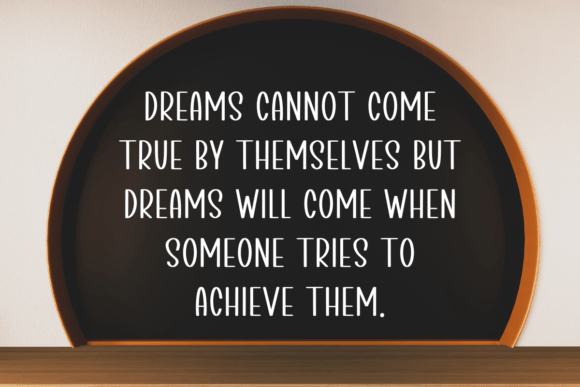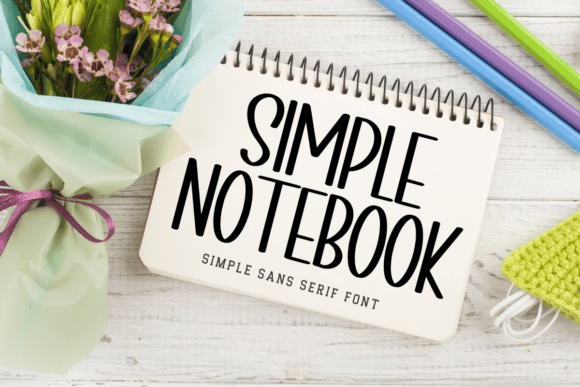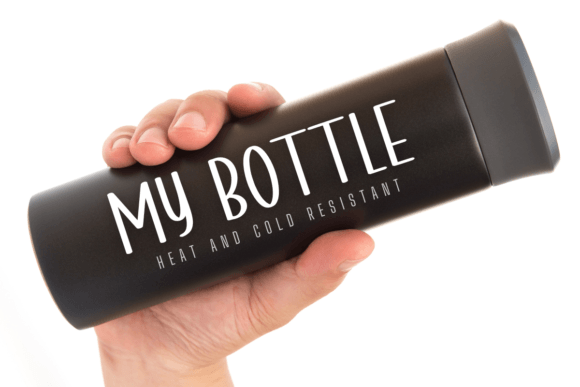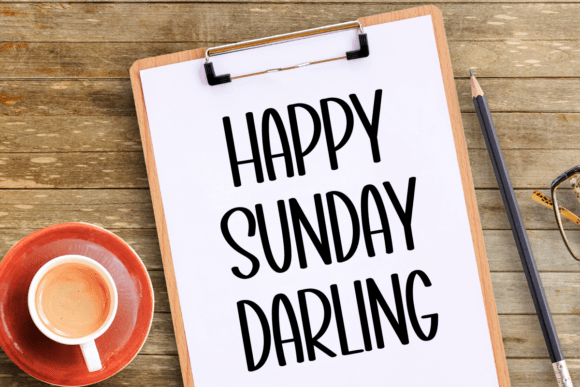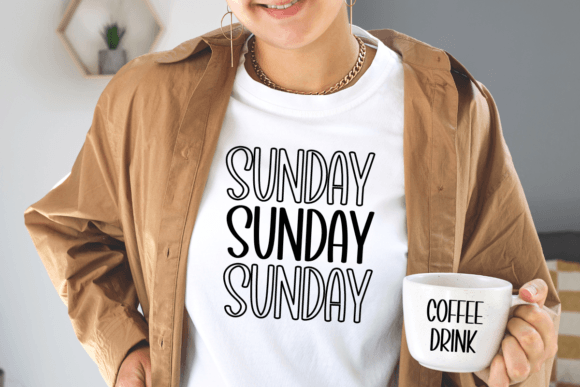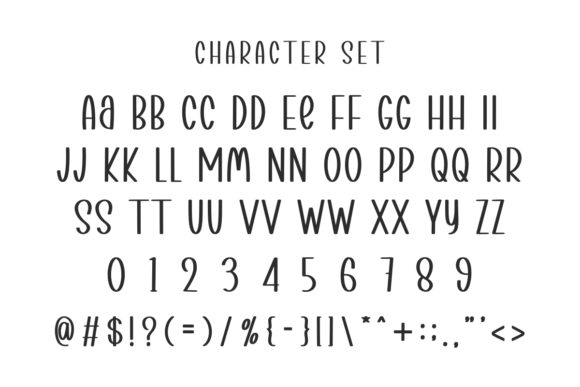
Discover the Charm of December Notebook Font: A Modern Sans-Serif Delight
In the world of typography, fonts play a crucial role in conveying the tone and personality of a design. For designers and crafters looking for a typeface that combines whimsy with clarity, December Notebook Font stands out as an exceptional choice. This modern and friendly sans-serif font is a delightful blend of playfulness and legibility, making it perfect for a variety of creative projects.
The Essence of December Notebook Font
December Notebook Font is characterized by its playful curves and rounded edges, which bring a sense of warmth and approachability to any design. Its unique charm lies in its ability to radiate a sweet, inviting personality that captures attention and engages the audience. Whether you’re working on children’s books, invitations, branding, or any other project that requires a friendly and approachable tone, December Notebook Font is an excellent choice.
Ideal for Children’s Books and Invitations
One of the standout applications of December Notebook Font is in children’s literature. The font’s playful and whimsical nature makes it perfect for storybooks, picture books, and early readers. Its clear and legible design ensures that young readers can follow along with ease, while the charming aesthetic helps to draw them into the story. Similarly, for invitations, especially those for children’s parties or events, December Notebook Font adds a touch of sweetness and innocence, setting the tone for a fun and memorable occasion.
Branding with December Notebook Font
Beyond children’s books and invitations, December Notebook Font also shines in branding applications. Its modern and friendly demeanor makes it suitable for businesses that want to convey a sense of approachability and warmth. Whether you’re launching a new product, rebranding an existing company, or creating a logo, December Notebook Font can help you establish a strong and inviting visual identity.
Key Features of December Notebook Font
- Modern Sans-Serif Design: December Notebook Font boasts a contemporary sans-serif design that feels fresh and current.
- Playful Curves and Rounded Edges: The font’s playful curves and rounded edges give it a warm and inviting feel.
- High Legibility: Despite its whimsical nature, December Notebook Font remains clear and easy to read, making it suitable for both print and digital applications.
- Versatile: From children’s books to branding, December Notebook Font’s versatility makes it a valuable addition to any designer’s toolkit.
Tips for Using December Notebook Font
To make the most of December Notebook Font, consider the following tips:
- Pair with Contrasting Fonts: Combine December Notebook Font with a more traditional or serif font to create visual interest and hierarchy in your designs.
- Experiment with Colors: The font’s friendly nature lends itself well to bright and cheerful colors, but don’t be afraid to try it with more muted palettes for a different effect.
- Play with Size and Weight: December Notebook Font comes in various weights and sizes, allowing you to experiment with different styles to suit your project’s needs.
December Notebook Font is a unique and captivating typeface that brings a blend of whimsy and clarity to any design project. Its modern sans-serif design, playful curves, and rounded edges make it an ideal choice for designers and crafters looking to infuse their work with warmth and personality. Whether you’re creating children’s books, invitations, or branding materials, December Notebook Font is sure to leave a lasting impression.